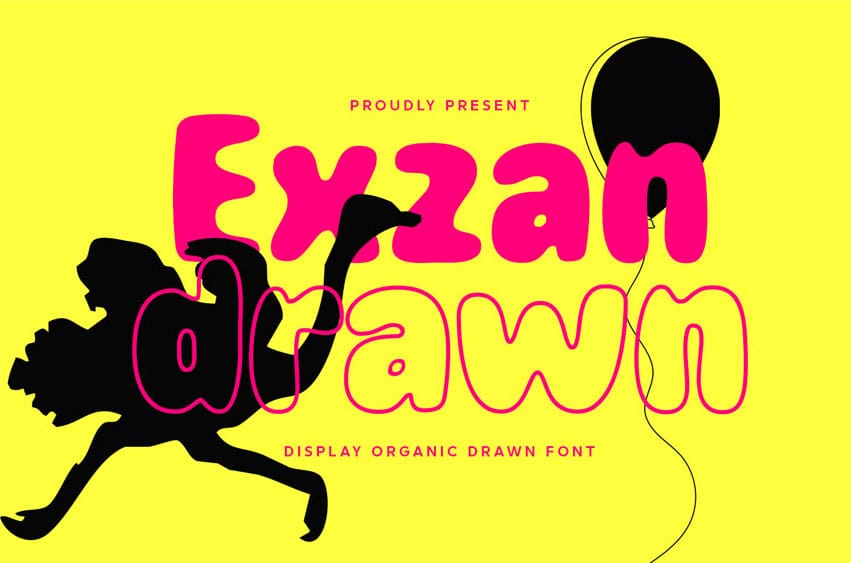
Exzan Drawn Font Get ready to pop with Exzan Drawn! This is a bubbly, bold, and organic display font that brings a sense of pure joy and spontaneity to your designs. Hand-drawn with a chunky, rounded aesthetic, Exzan Drawn mimics the carefree strokes of a thick marker or the softness of a balloon. Its irregular, “wobbly” outlines give it a distinctively human and friendly feel, making it far from rigid or boring.
Whether you are designing for a children or funky and eye-catching design, Exzan Drawn ensures your message stands out with a playful attitude.